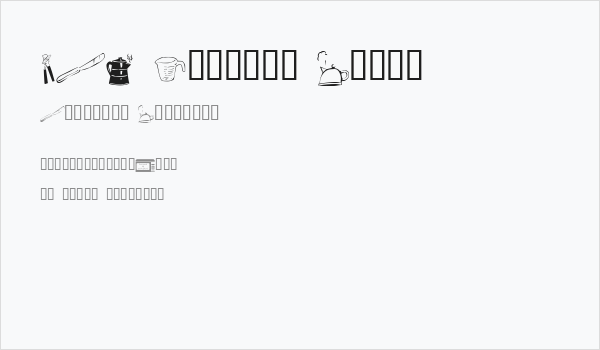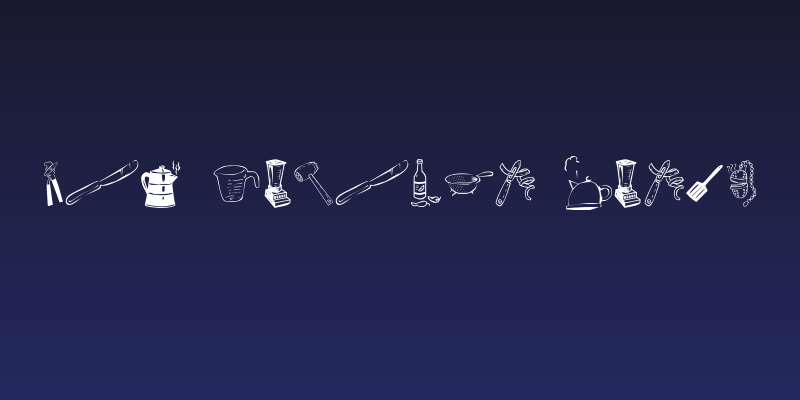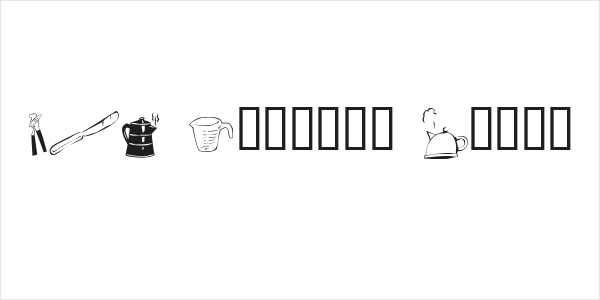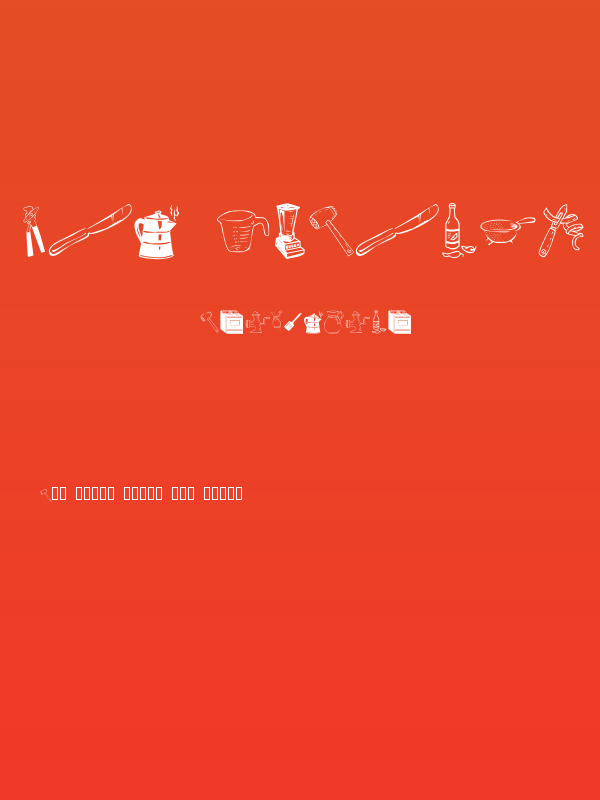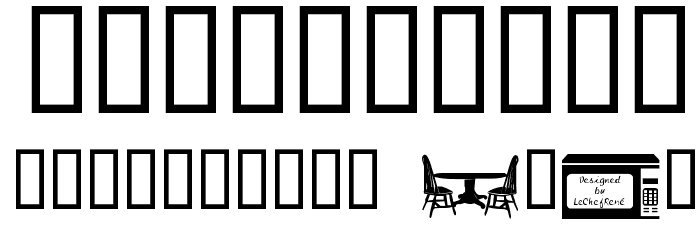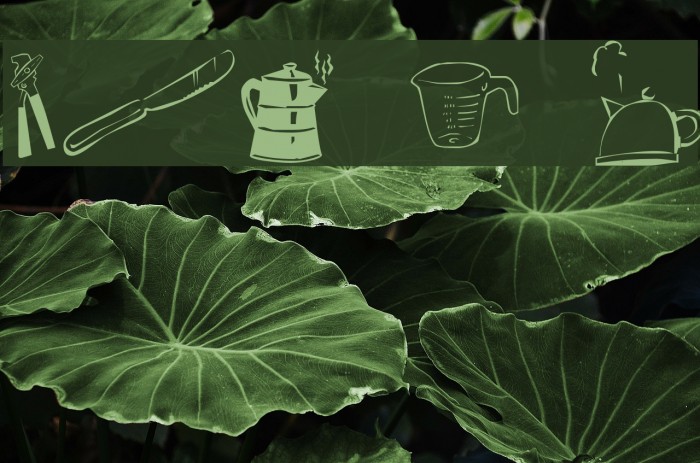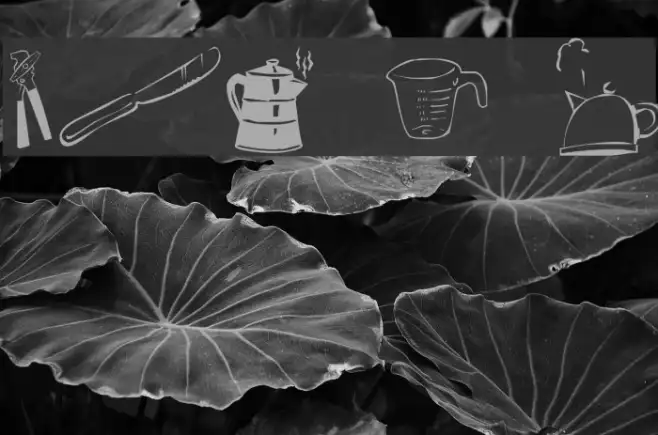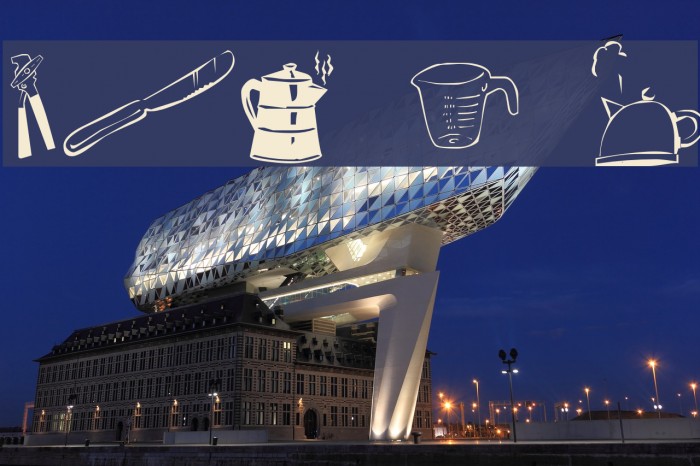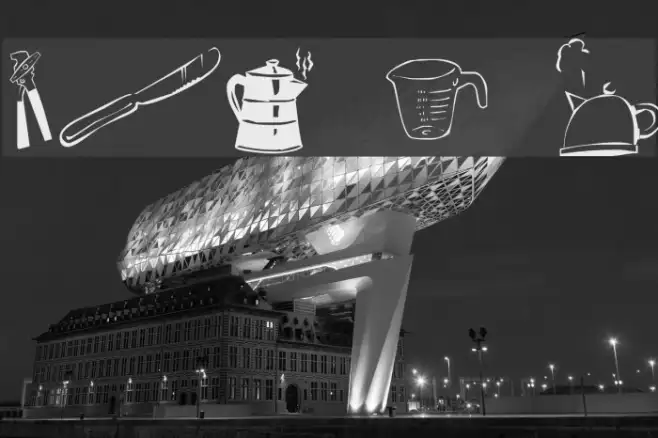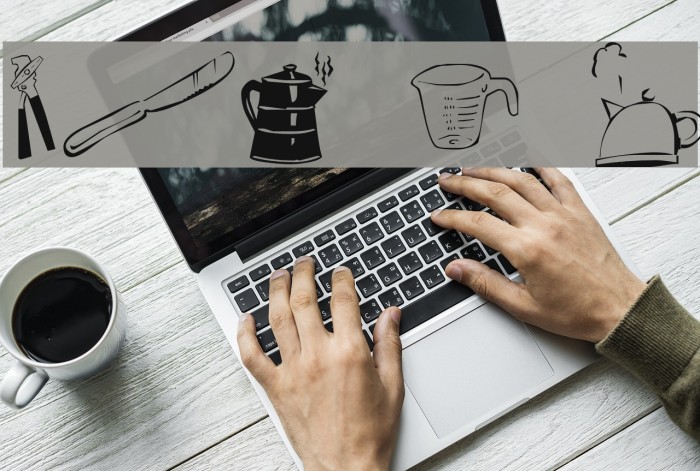
LCR Kitchen Dings Font
LCR Kitchen Dings Description
This font is a decorative collection of kitchen-themed dingbats, featuring a variety of cooking utensils and appliances. Each character is represented by a detailed illustration of items commonly found in a kitchen, such as forks, knives, pots, and pans. The style is playful and whimsical, making it ideal for projects that require a touch of culinary charm. The illustrations are clear and distinct, with a hand-drawn aesthetic that adds a personal touch. This font is perfect for creative projects that aim to evoke a sense of home cooking or culinary arts.
| Use Case | Logos, Decorative elements, Themed graphics |
| Proposed Projects | Ideal for recipe books, cooking blogs, kitchen decor, and culinary event invitations. |